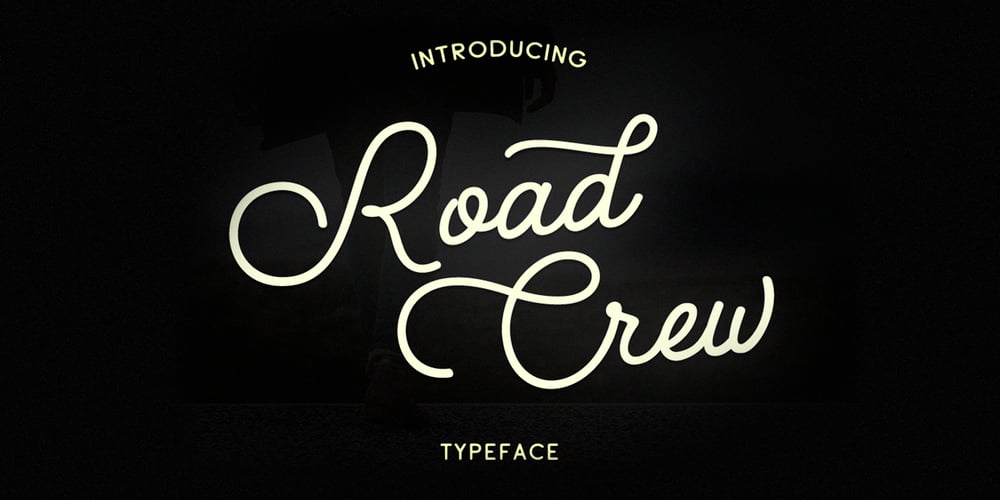
Road Crew
Road Crew font
Road Crew Font Family was designed by Pavel Larin and published by Larin Type Co. Road Crew contains 2 styles and family package options. Road Crew is a handwritten, monoline font that includes two styles, regular and bold, with which you can combine and create unique designs in an instant. Also included in this font are alternatives and touches that you can use to make your design more diverse and attractive. You can also use them to create a logo or use them for small businesses, t-shirts, book covers, stationery, marketing, blogs, magazines, and more.